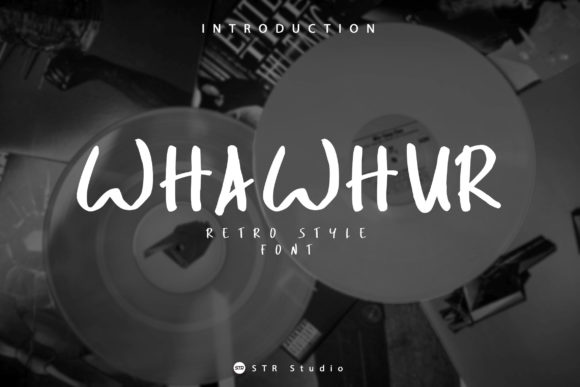
**Introducing the Whawhur Font: The Ultimate Expression of Professionalism and Creativity**
In the competitive world of business, it's not just about delivering exceptional products or services; it's about creating an unforgettable impression that sets your brand apart and captivates your audience. And when it comes to making a lasting impact, the font you choose for your cover letter can make all the difference.
Meet Whawhur, the display font that exudes professionalism and creativity, the perfect choice for cover letters and any document that demands attention and conveys a unique personality. Whawhur's cool and friendly appearance instantly grabs attention, inviting readers to delve deeper into your words, while its versatile nature ensures a seamless fit with a wide range of business needs.
**Unleash Your Creativity and Make a Bold Statement**
With Whawhur, the possibilities are endless. Its adaptability makes it suitable for an array of applications, from captivating branding materials and sleek business cards to thought-provoking quotes and eye-catching posters. Whawhur transforms ordinary words into works of art, allowing you to showcase your professionalism and creativity in every communication.
**Connect with Your Audience on a Personal Level**
Whawhur possesses an innate ability to connect with your audience on a personal level. Its friendly and approachable character creates a sense of warmth and familiarity, fostering trust and engagement. Whether you're crafting a cover letter, designing a website, or creating social media content, Whawhur empowers you to authentically engage with your audience, leaving an indelible mark in their minds.
**Designed to Impress, Destined for Success**
Whawhur is not just another font; it's an investment in your professional image. Its modern and stylish design conveys a sense of sophistication and excellence, setting you apart from the competition and leaving a lasting impression that resonates with potential employers and clients alike.
**The Perfect Choice for Every Business Need**
Whether you're a small business owner, an entrepreneur, or a creative professional, Whawhur adapts seamlessly to your unique requirements. Its versatility ensures that it complements a wide range of branding styles and marketing strategies, allowing you to create a cohesive and impactful brand identity.
**Take Your Cover Letter to the Next Level**
In the highly competitive world of job hunting, every advantage counts. Whawhur empowers you to create a cover letter that stands out from the crowd, showcasing your professionalism and creativity. Its captivating design captures the attention of recruiters and hiring managers, giving you the edge you need to land your dream job.